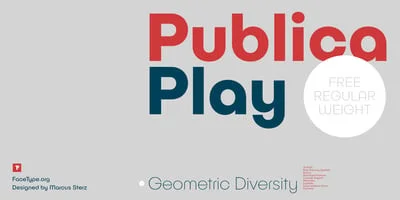
Publica Play Font
Publica Play Font is ideal for public space design, playground signage systems, recreational facility branding, community center communications, public park materials, children's activity promotions, civic engagement campaigns, municipal playground projects, family entertainment venues, and accessible public applications. This friendly typeface creates authentic community atmosphere in both public print and digital civic platforms.
What makes Publica Play Font exciting is its perfect balance of public accessibility with playful character that ensures inclusive communication for diverse community audiences. The font features welcoming letterforms with community-focused proportions and playful character details that evoke public gatherings, recreational activities, and civic participation. Its accessible design establishes an atmosphere of community inclusion and public engagement that resonates with citizens seeking authentic civic connection and family-friendly environments.
Publica Play Font family includes community variations: Light, Regular, Medium, Bold, and Civic versions, each with accessible alternates and public character sets. Each variant maintains the font's community personality while providing designers with inclusive options for creating public typography systems and civic communication materials.
This exceptional public typeface brings authentic civic credibility to projects requiring community presentation. Whether you're designing public spaces, municipal branding, or community event materials, Publica Play Font delivers outstanding accessibility and civic sophistication. The font's community proportions and playful details ensure memorable public connection across various municipal applications.
Municipal authorities and community organizations recognize how Publica Play Font perfectly captures the essence of public service and community engagement. Its civic foundation combined with playful accessibility makes it essential for public and community design projects. Download today and publicize your designs with this exceptionally inclusive community typography.